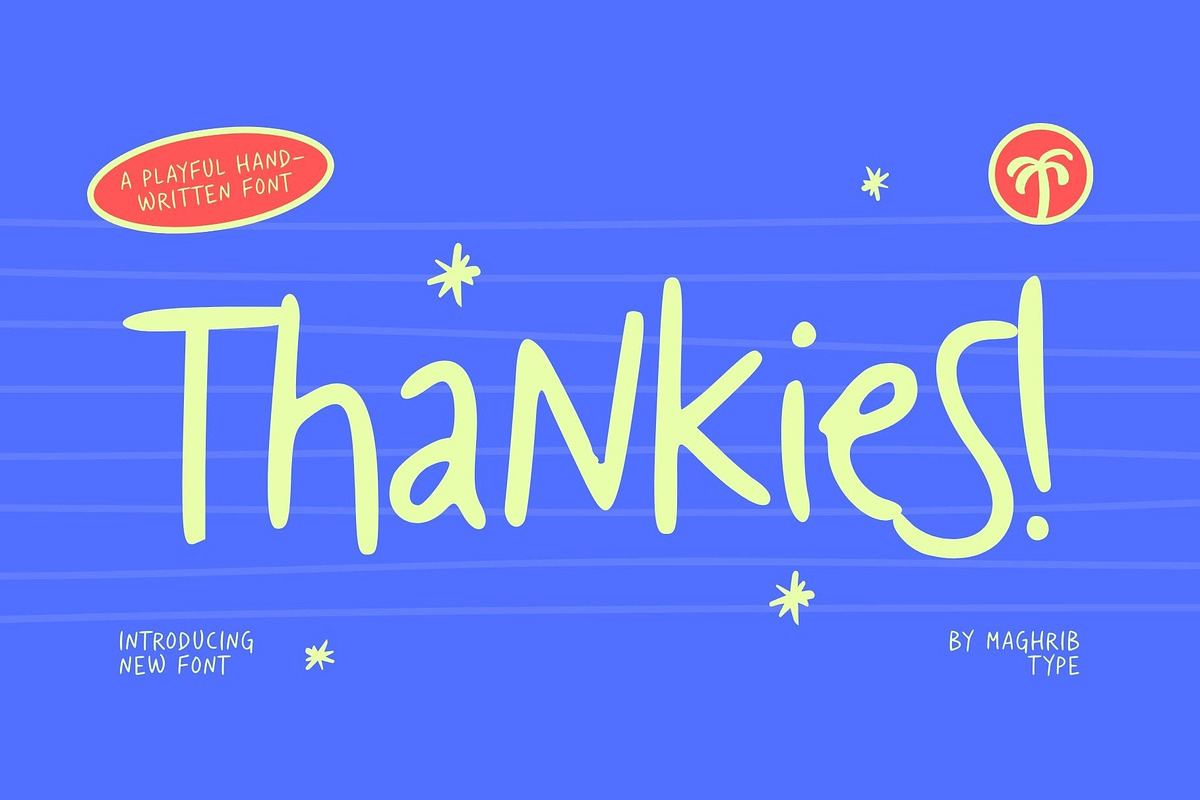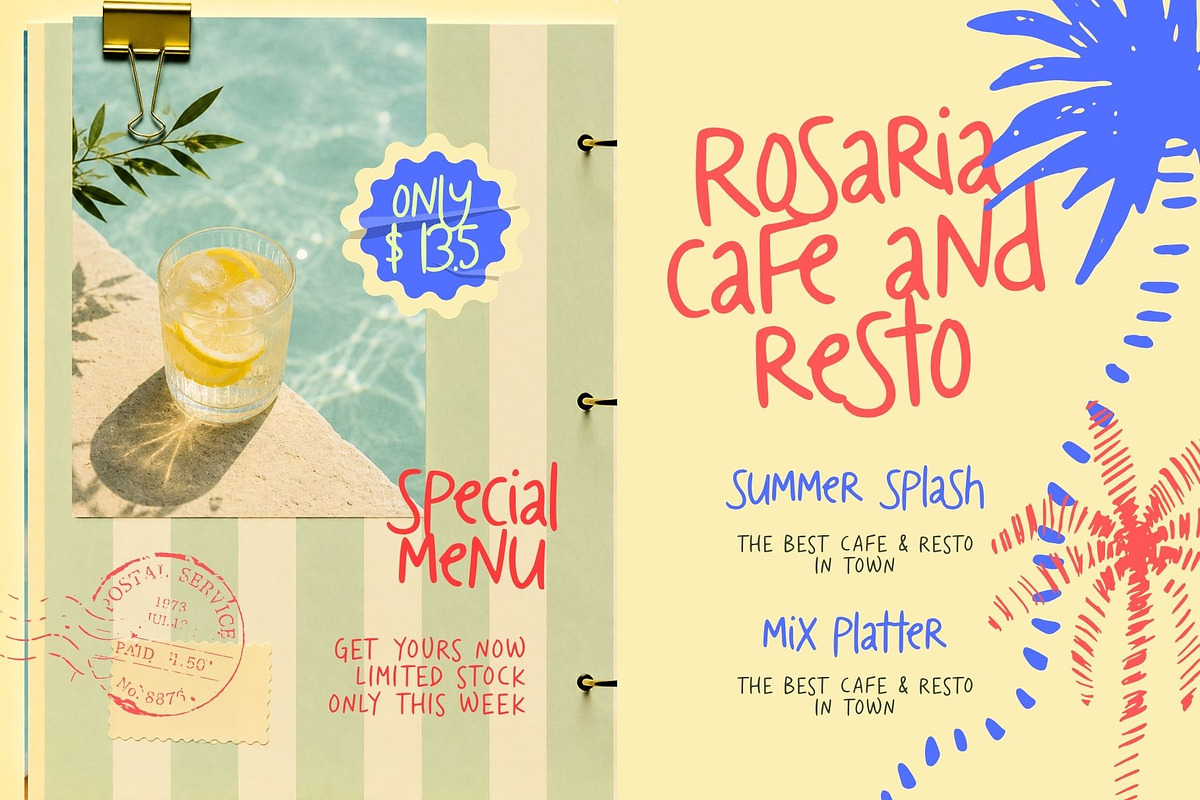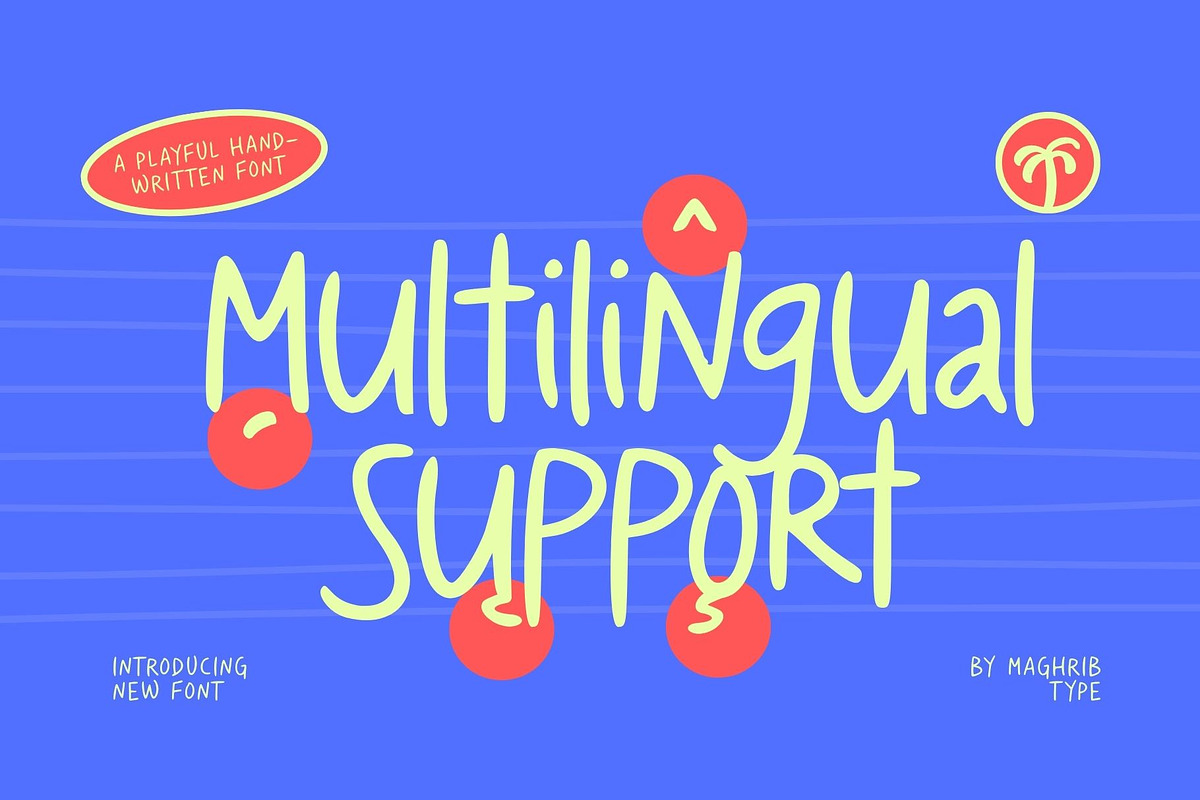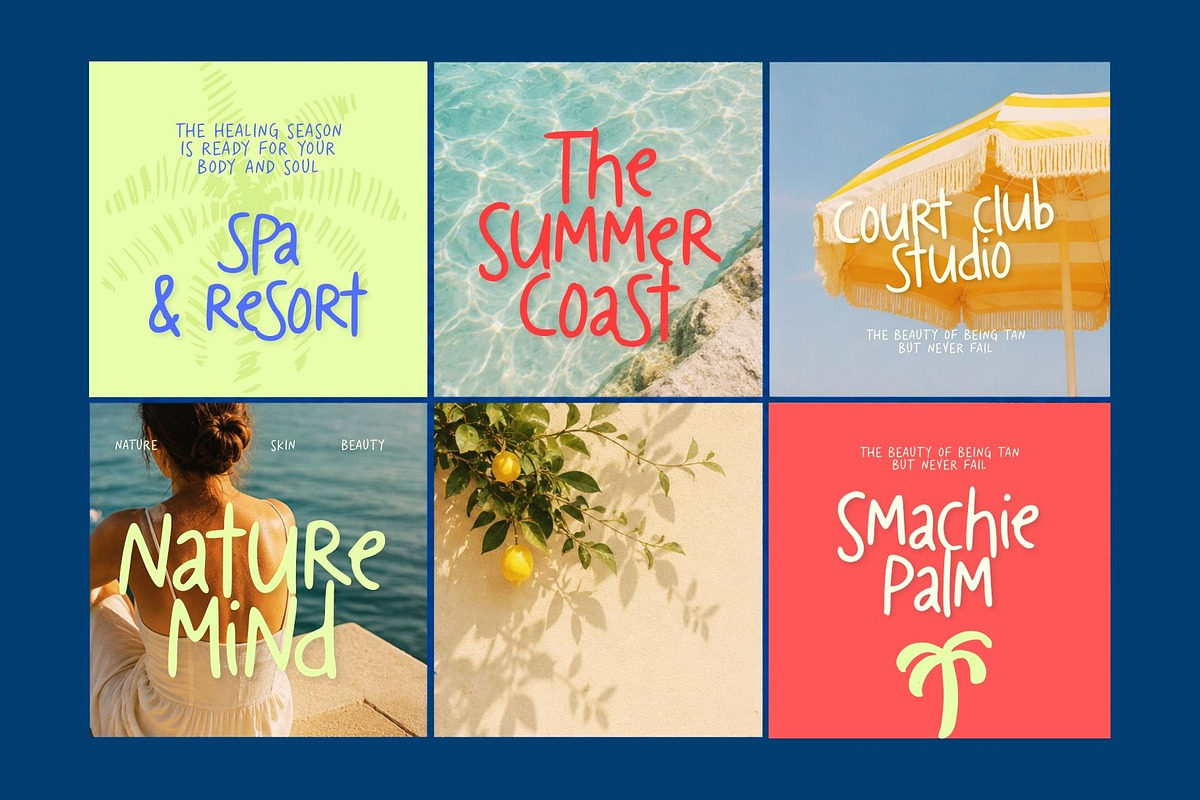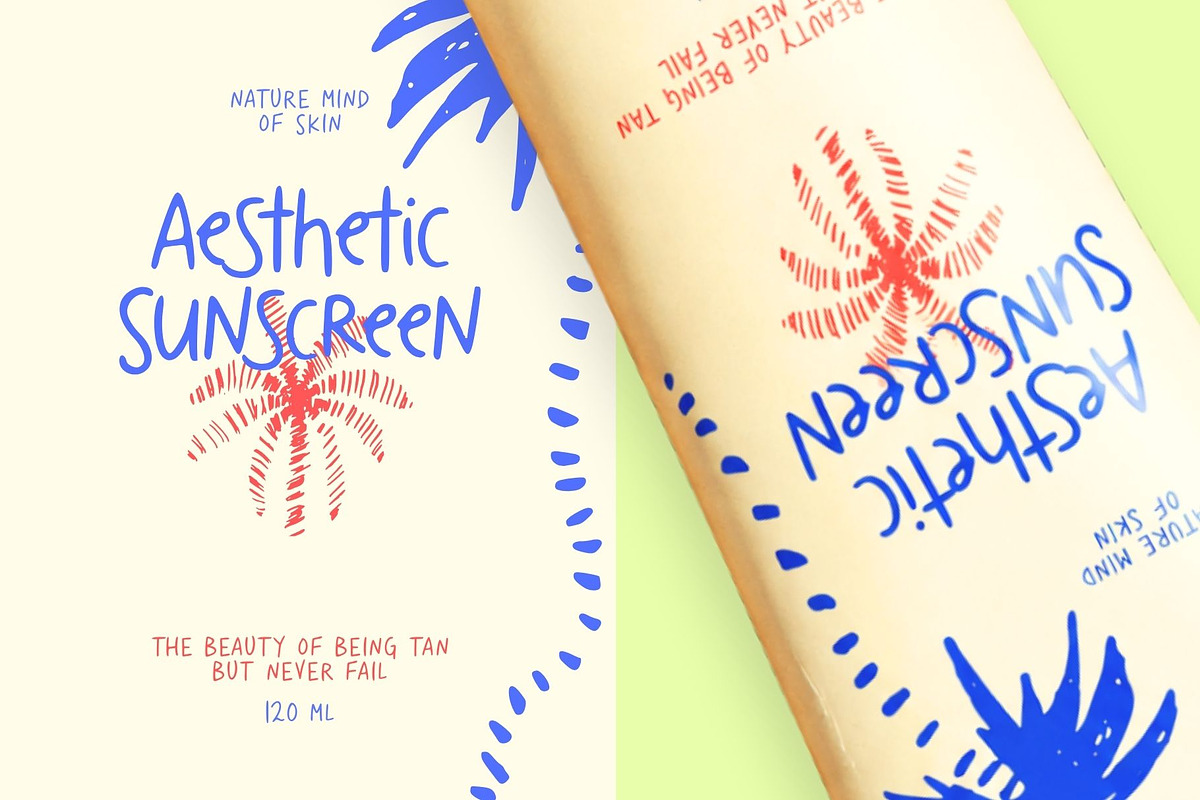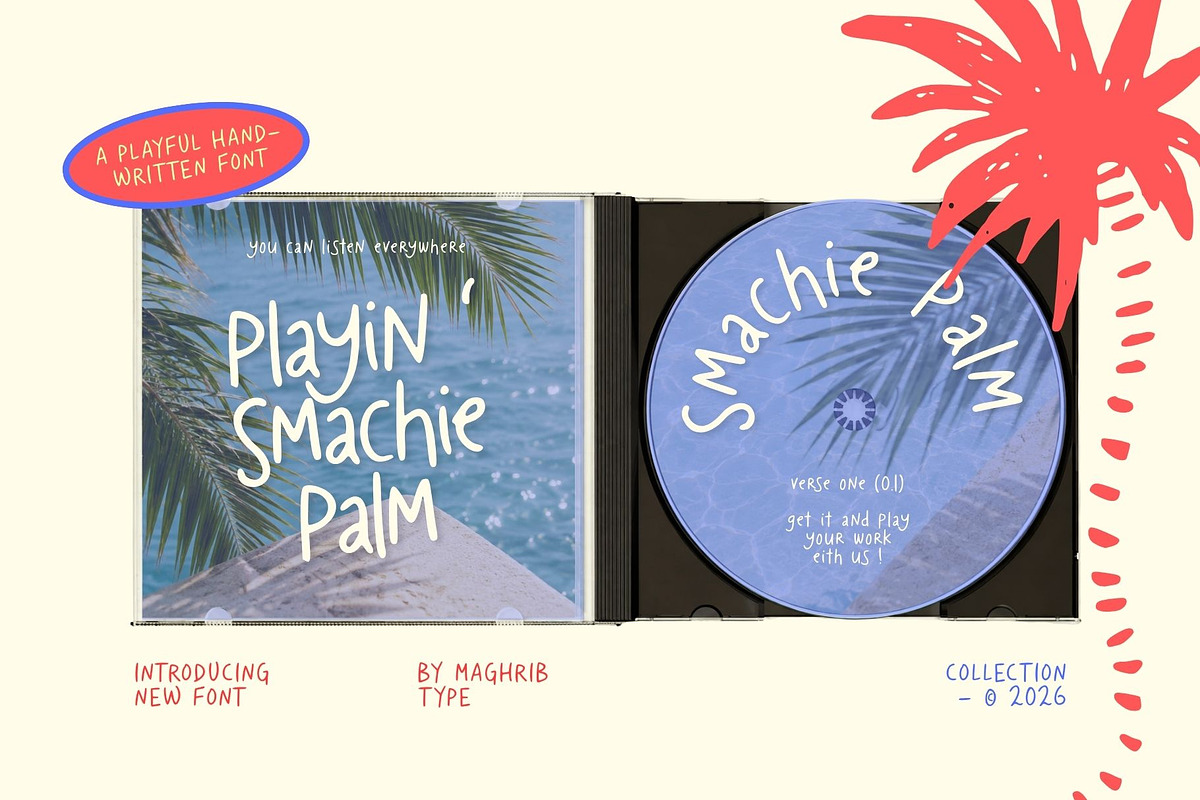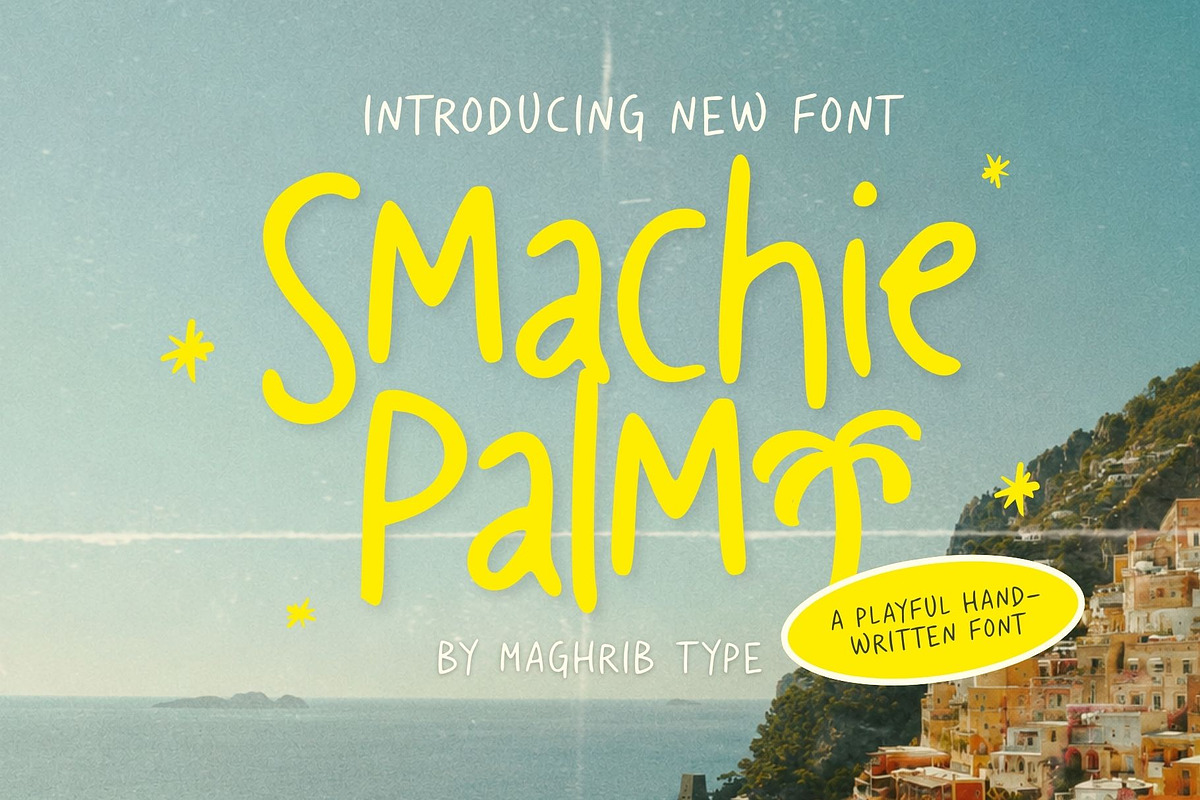
Smachie Palm
Smachie Palm is a playful hand-drawn font inspired by sunny summer days, tropical vacations, and carefree handwritten notes. Featuring natural strokes and an authentic handwritten feel, this font brings warmth, personality, and a relaxed vibe to every design.
Whether you're creating eye-catching social media content, branding, posters, packaging, greeting cards, invitations, café menus, or lifestyle products, Smachie Palm adds a fresh and cheerful touch that feels effortlessly handmade.
Perfect for designers, content creators, and small businesses looking for a friendly, fun, and unique handwritten font with a modern summer aesthetic.
Social Media Posts
Instagram & Pinterest Graphics
Posters & Flyers
Branding & Logos
Greeting Cards
Invitations
Café & Restaurant Menus
Quotes
Stickers
Children's Products
Editorial Design
Lifestyle Branding